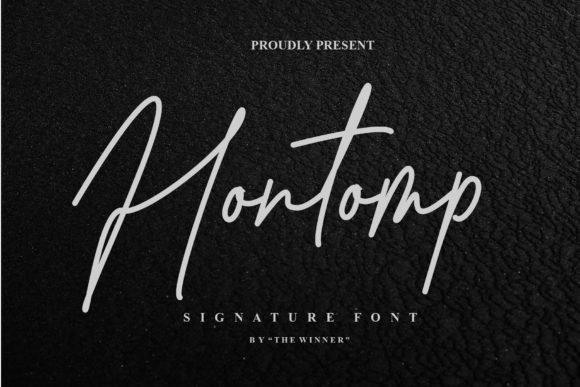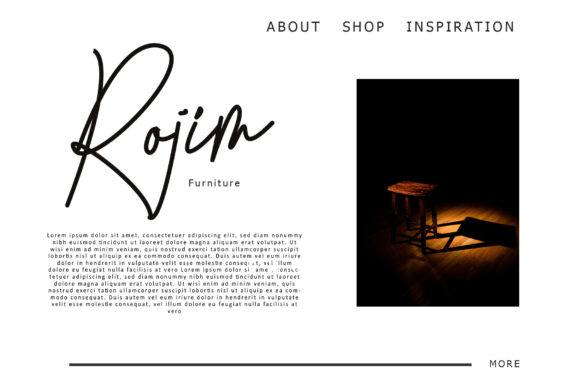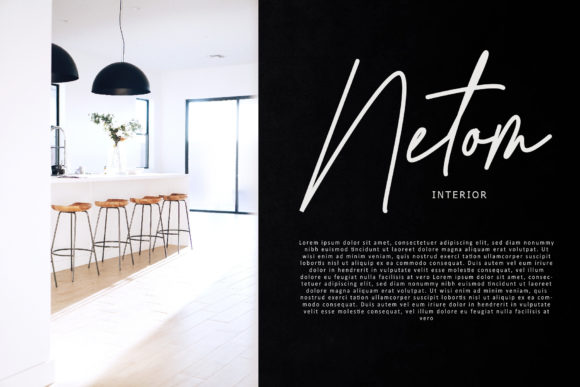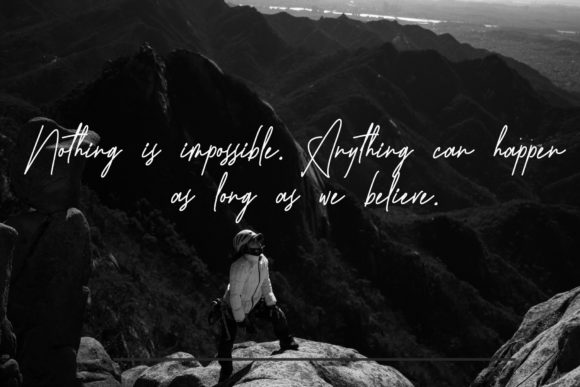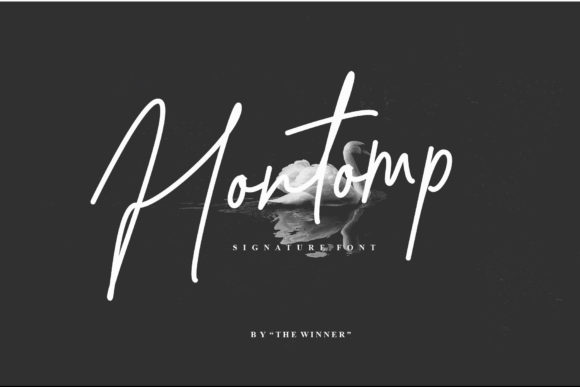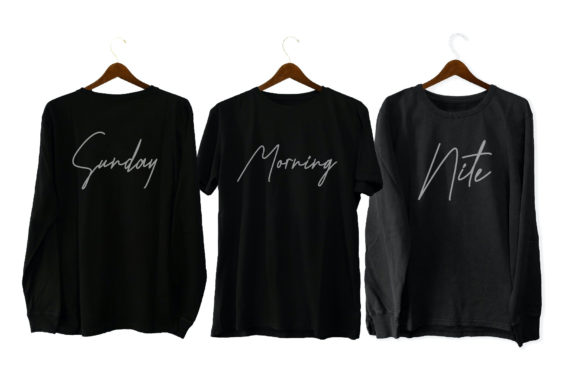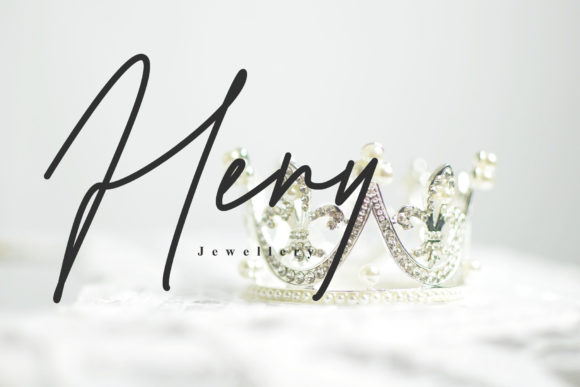
The Perfect Script Font for Your Next Design Project
Have you ever stared at a blank page, searching for the perfect font to bring your design to life? It’s a moment we’ve all been there, and it’s often the turning point that determines the success of our creative endeavors. For designers, the right font can elevate a project from ordinary to extraordinary, and that’s where the Hontomp Font comes in.
This stylish and delicate script font boasts a clean, thin, and smooth vibe that’s sure to captivate audiences. Its versatility makes it an ideal addition to any design, whether you’re working on a logo, a poster, or a website. The Hontomp Font is a valuable asset for designers, offering a unique and timeless look that’s hard to find in other fonts.
Hontomp Font Key Features
- Font Family: Hontomp Font offers a unique and elegant font family with multiple styles, including Regular, Bold, Italic, and Bold Italic.
- Character Set: Supports a wide range of characters, including Latin, Cyrillic, Greek, and many other languages, making it suitable for international use.
- Unique Characteristics: The Hontomp Font features a distinctive, handwritten feel with subtle flourishes and elegant connections between letters, adding a touch of sophistication to any design.
Hontomp Font Review
I recently had the chance to work with the Hontomp font, and I must say, it’s an interesting choice. Here are some of its strengths and weaknesses.
- Creativity**: Hontomp font is not your average, run-of-the-mill font. It’s unique, quirky, and adds a touch of whimsy to any design project.
- Legibility**: Despite its unconventional design, Hontomp font is surprisingly easy to read, even at smaller sizes.
- Limited use cases**: Hontomp font might not be the best choice for projects that require a more formal or professional tone.
- Not suitable for body text**: While Hontomp font works well for headings and titles, it may not be the best choice for large blocks of body text.
- Customization limitations**: Hontomp font doesn’t offer a lot of customization options, which might limit its versatility.
Hontomp font is a great choice for designers who want to add a touch of personality to their projects. While it may not be suitable for every project, it’s definitely worth considering for the right design brief. With its unique design and good legibility, Hontomp font has the potential to add a wow factor to your designs.
Tips for Getting the Most Out of Hontomp Font
Use Hontomp Font for titles and headings to add a unique touch to your designs.
Combine Hontomp Font with other fonts to create a visually appealing contrast.
Experiment with different font sizes and styles to achieve the desired effect.
Hontomp Font is ideal for:
Designing posters and flyers.
Creating business cards and letterheads.
Adding a unique touch to presentations and reports.
Alternatives to Hontomp Font
Bebas Neue Font
Bebas Neue Font is a modern sans-serif font that is perfect for creating a clean and minimalistic look. It is ideal for use in headings, titles, and short paragraphs where legibility is key. Bebas Neue Font has a similar feel to Hontomp Font, but with a more modern and sleek aesthetic.
Comparison to Hontomp Font: Bebas Neue Font has a more geometric and uniform feel, whereas Hontomp Font has a more handwritten and cursive feel. Bebas Neue Font is also more versatile and can be used in a wider range of contexts.
Lato Font is a popular sans-serif font that is highly legible and versatile. It is ideal for use in body text, headings, and titles where a clear and readable font is needed. Lato Font has a similar feel to Hontomp Font, but with a more elegant and refined aesthetic.
Comparison to Hontomp Font: Lato Font has a more classic and timeless feel, whereas Hontomp Font has a more modern and trendy feel. Lato Font is also more suitable for use in long blocks of text, whereas Hontomp Font is better suited for use in shorter paragraphs and headings.